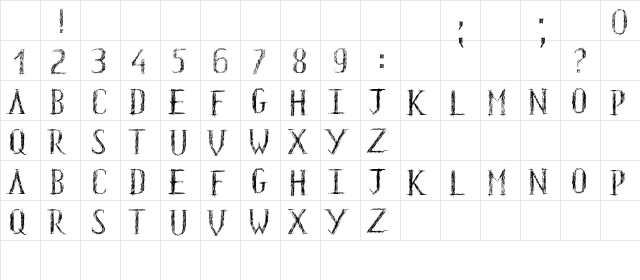
Complete HKH Old Glyphs Regular glyph index. Displaying only characters natively supported by HKH Old Glyphs Regular font.
HKH Old Glyphs is a composed and adaptable typeface that performs quietly and consistently across a wide range of design contexts.